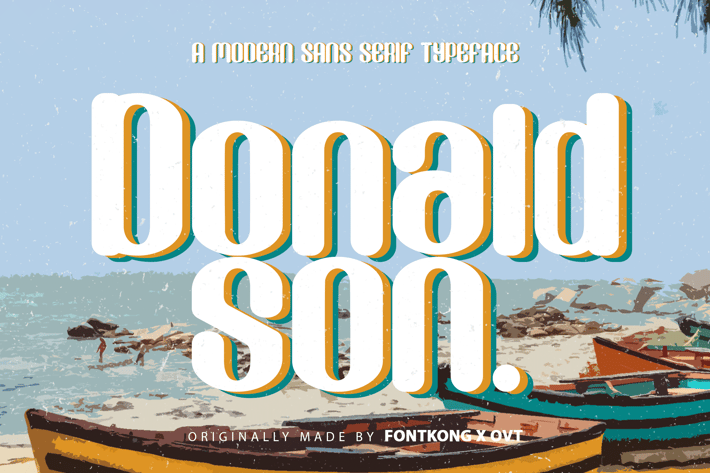
Donaldson - A Modern Sans Serif Typeface
Donaldson is a sleek and contemporary sans serif typeface designed to bring a clean and professional look to your design projects. With its minimalist aesthetics and balanced letterforms, Donaldson is perfect for corporate branding, editorial design, web typography, and modern interfaces. This font combines simplicity with sophistication, ensuring your work stands out with a modern and refined appearance.
Crafted with precision, Donaldson features clean lines and versatile characters that offer excellent readability and visual harmony. Its elegant design makes it ideal for both headlines and body text, providing a harmonious and polished look across all your visual communications. The font’s versatility allows it to seamlessly integrate into various design contexts, from digital platforms to printed materials.
Elevate your design projects with Donaldson, a font that embodies the perfect blend of modernity and professionalism. Its clean style and adaptability make it an essential addition to any designer’s toolkit for creating sleek and contemporary visuals. Enhance your work with Donaldson and experience the versatility of modern sans serif typography.
Donaldson is a sleek and contemporary sans serif typeface designed to bring a clean and professional look to your design projects. With its minimalist aesthetics and balanced letterforms, Donaldson is perfect for corporate branding, editorial design, web typography, and modern interfaces. This font combines simplicity with sophistication, ensuring your work stands out with a modern and refined appearance.
Crafted with precision, Donaldson features clean lines and versatile characters that offer excellent readability and visual harmony. Its elegant design makes it ideal for both headlines and body text, providing a harmonious and polished look across all your visual communications. The font’s versatility allows it to seamlessly integrate into various design contexts, from digital platforms to printed materials.
Elevate your design projects with Donaldson, a font that embodies the perfect blend of modernity and professionalism. Its clean style and adaptability make it an essential addition to any designer’s toolkit for creating sleek and contemporary visuals. Enhance your work with Donaldson and experience the versatility of modern sans serif typography.